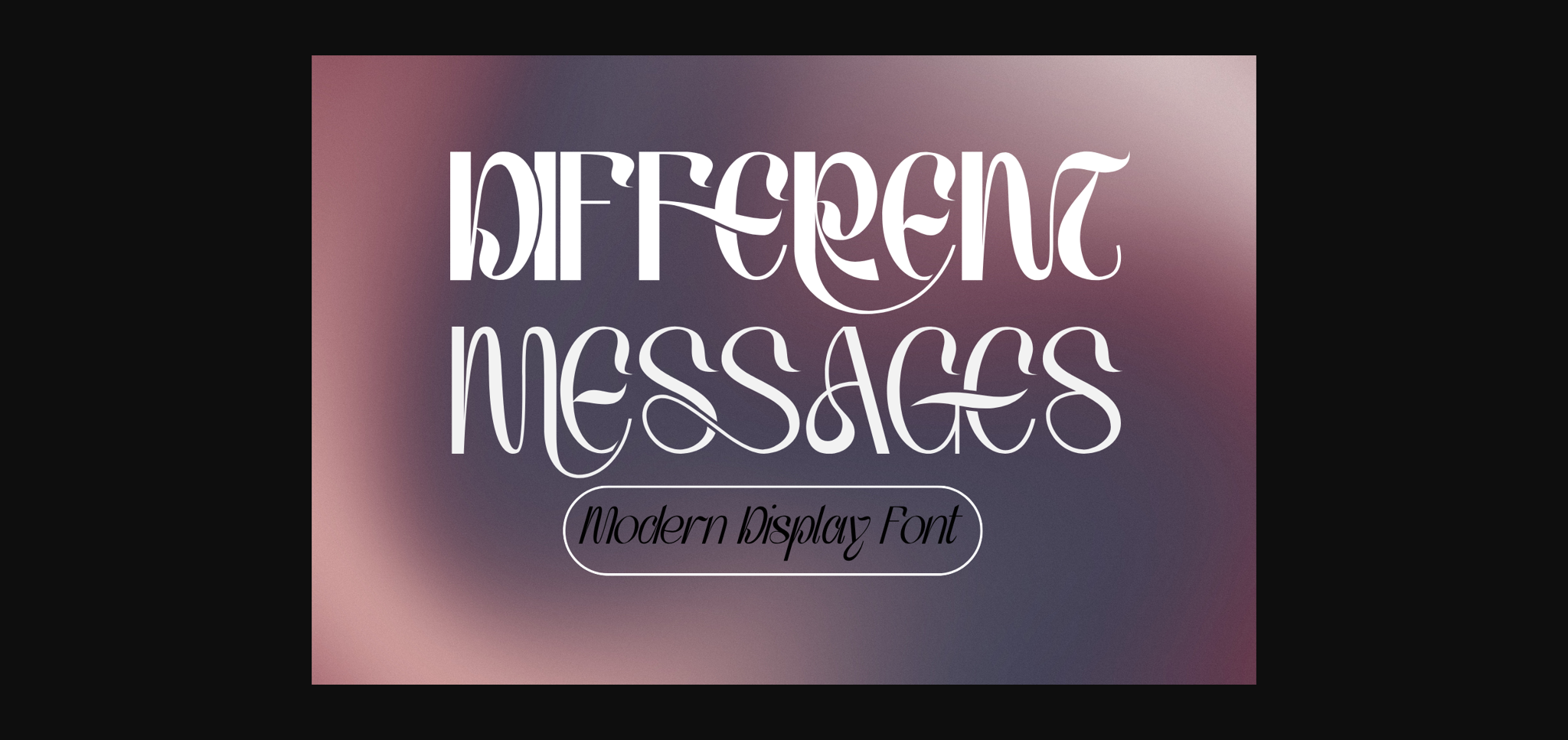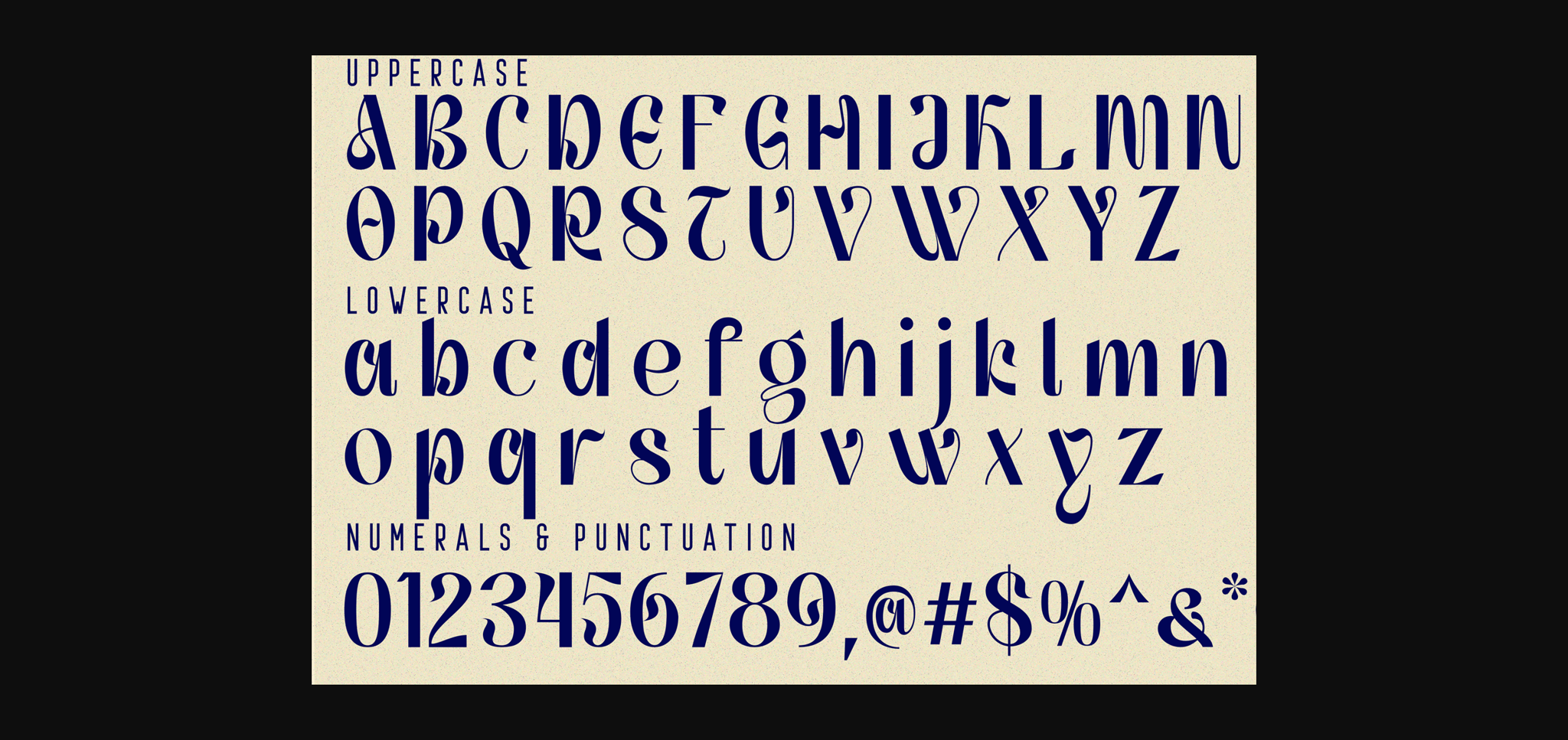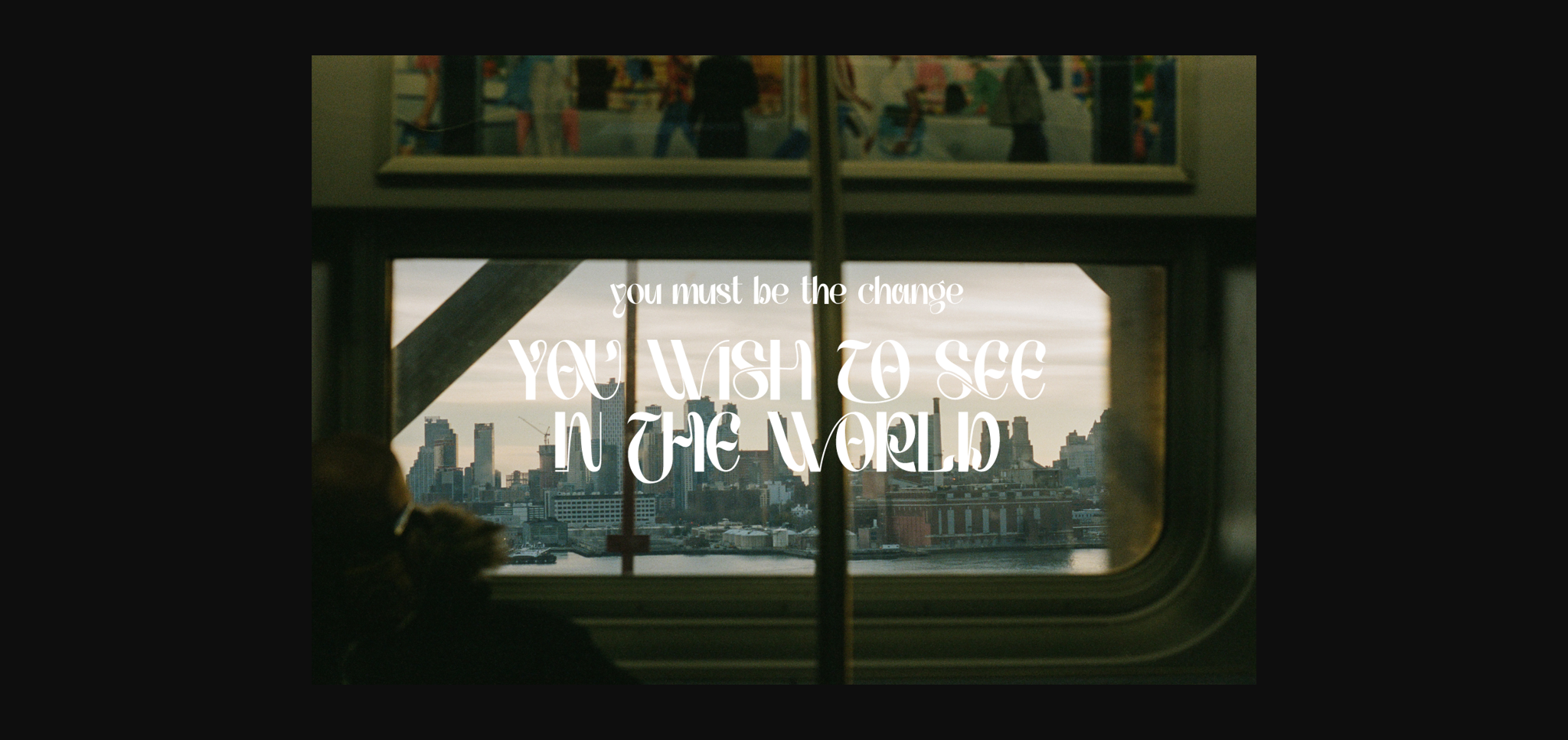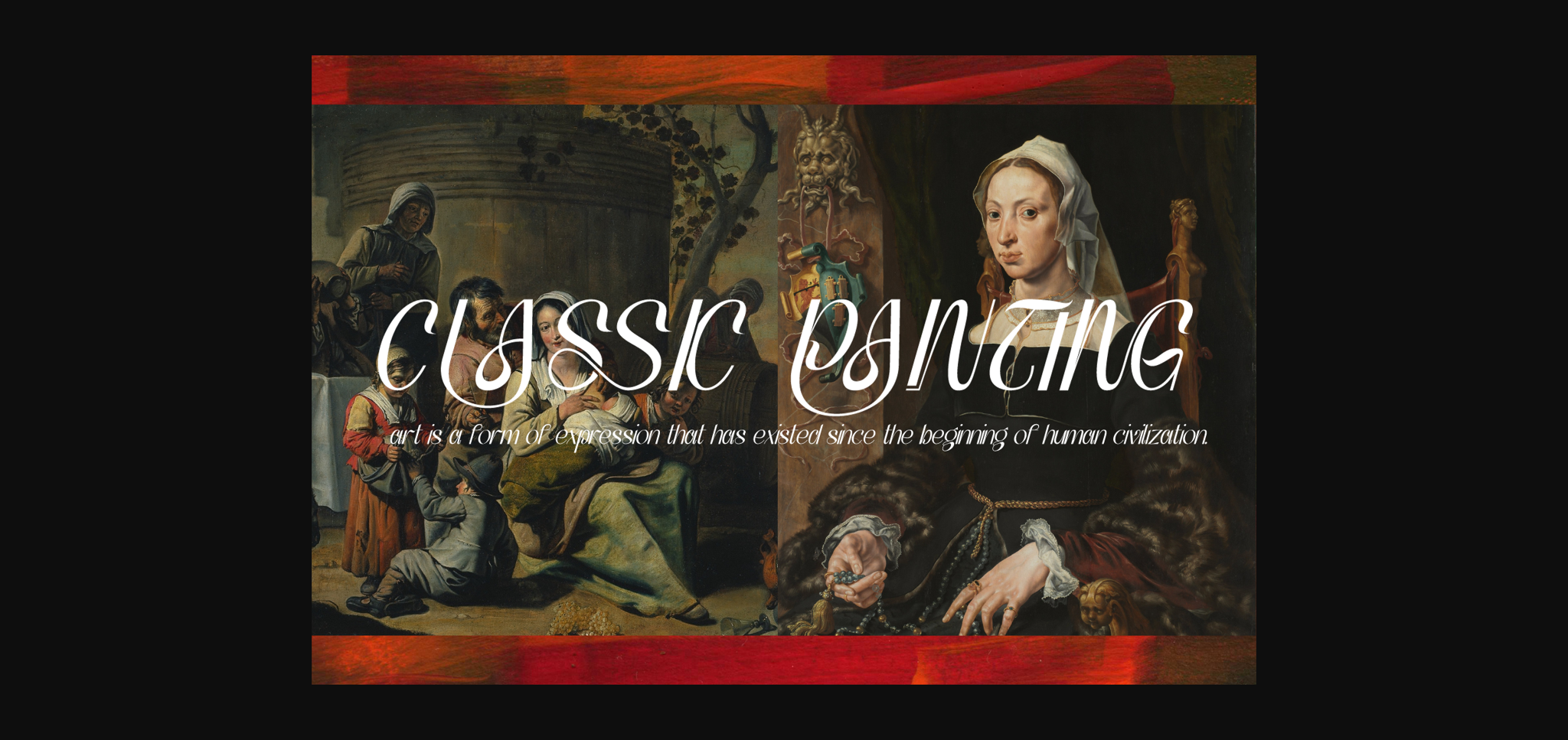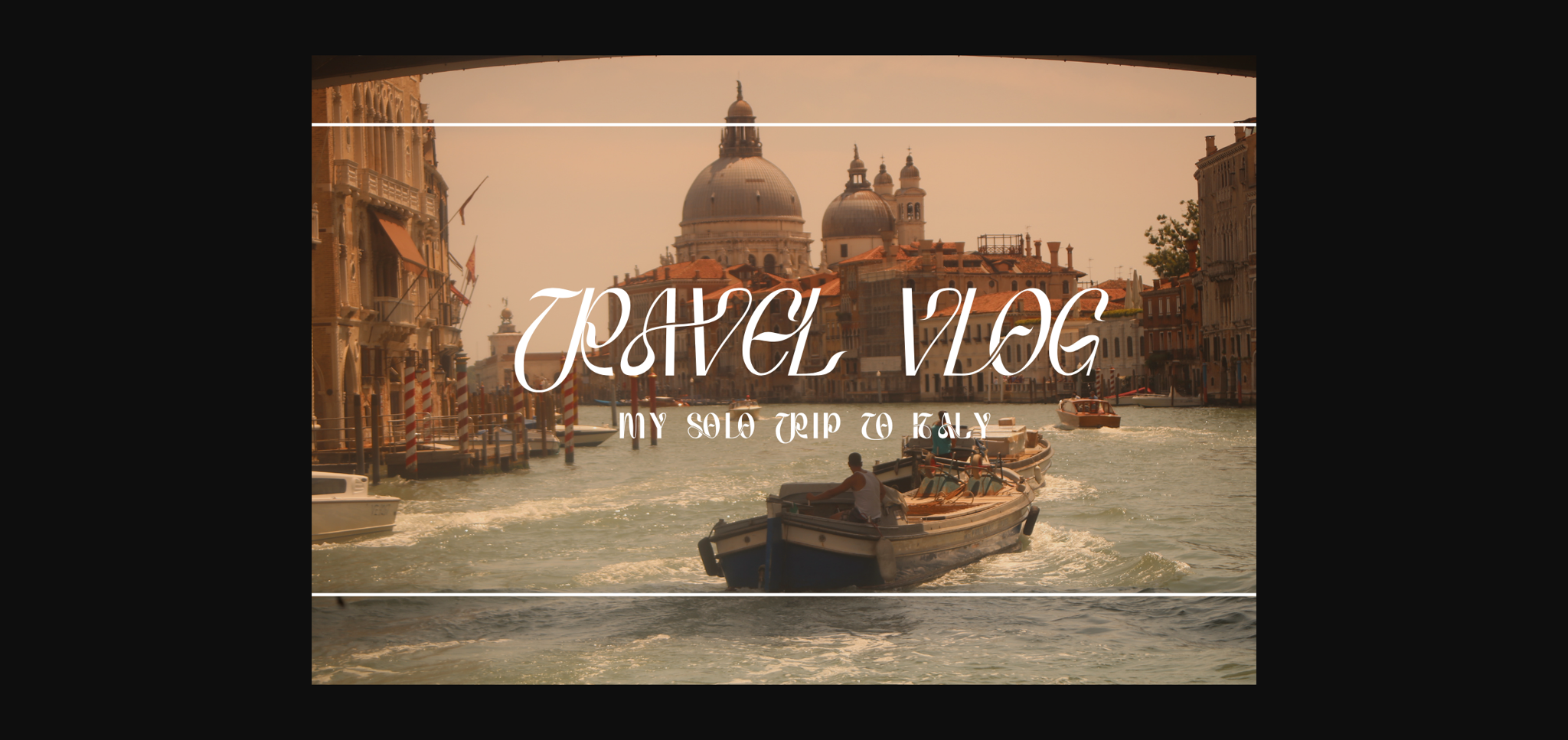
About Different Messages Font
DIFFERENT MESSAGES FONT — a highly stylized typeface with over the top psychedelic vibes. One of a kind, certainly not the kind of typeface you see everyday. Modern Modern Display Font, use this font for any branding, product packaging, invitation, quotes, t-shirt, label, poster, logo etc.
DIFFERENT MESSAGES was built with OpenType features and includes 100 ligatures, alternate, numbers, punctuation, and it also supports other languages.